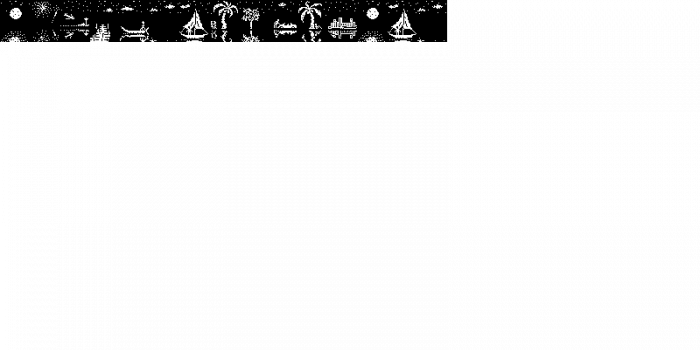
Type any letter and see the night is filled with so much joy
cool. i like the reflection effect
Remindes me when making flipnotes on my nintendo dsi!
Guess what I imputed.
probably "oxyphen but a zone"?